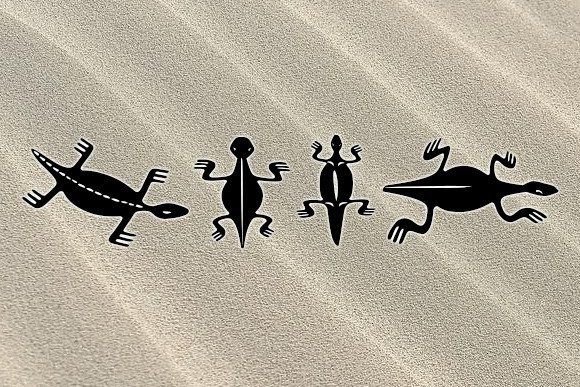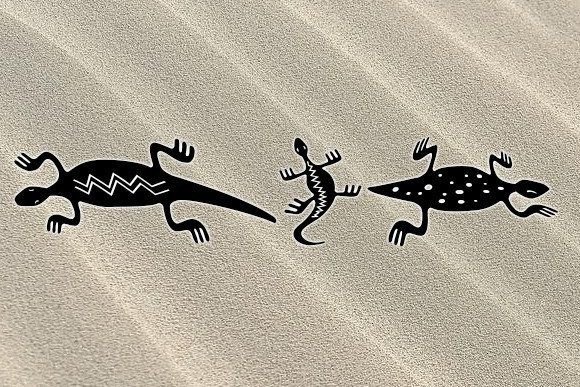
Introduction to Lizards Font
You’re in the middle of a creative project, brainstorming ideas and pouring over inspiration. The perfect design element has finally clicked into place – a visually striking dingbat that adds that extra wow factor to your work. If you’re on the hunt for something to elevate your designs, you’re in luck. We’re excited to introduce the Lizards Font, a high-quality dingbat that will leave a lasting impression on your audience.
Whether you’re working on posters, flyers, or any other creative project, the Lizards Font is a valuable design resource that’s sure to impress. With its unique, eye-catching design, this free download is perfect for designers looking to add a little extra flair to their work. Plus, with a transparent background, you can easily integrate it into any design without compromising its visual impact.
Lizards Font
- High-quality design resource ideal for creative projects, including graphic design, web design, and digital art.
- Comes in a transparent background option, allowing for seamless integration into various design elements.
- Features a unique and modern design style, making it a great addition to any creative project.
- Designed with a high resolution, ensuring crisp and clear text display, even at larger sizes.
- Supports a wide range of languages, making it a versatile design resource for international projects.
Honest Review: Lizards Font
I recently stumbled upon the Lizards Font and was excited to test it out for a creative project. As a designer, I’m always on the lookout for high-quality design resources that can elevate my work. The Lizards Font did not disappoint!
What works well is the unique, quirky feel of this font. It’s perfect for adding a touch of whimsy to your design. The font is also highly customizable, allowing you to easily adjust the size and color to fit your needs. ✨ I also appreciate that it’s a free download, making it a valuable resource for designers on a budget.
One thing to note is that the font does have a transparent background, which can be a bit tricky to work with. If you’re not familiar with how to use a transparent background, you may encounter some issues. ⚠️ Additionally, the font may not be suitable for all types of projects, such as those requiring a more formal or professional tone.
Overall, I’m impressed with the Lizards Font and would definitely recommend it for designers looking for a fun and creative font to add some personality to their work.
- Unique, quirky design
- Not suitable for all types of projects